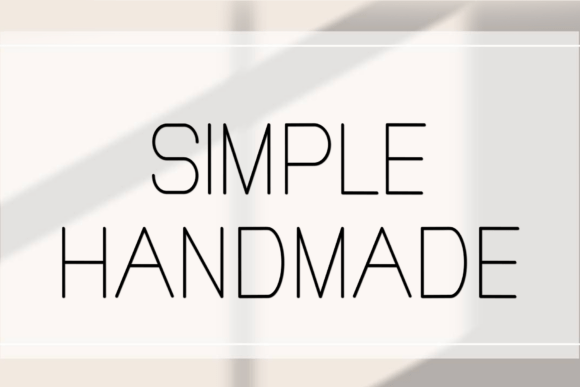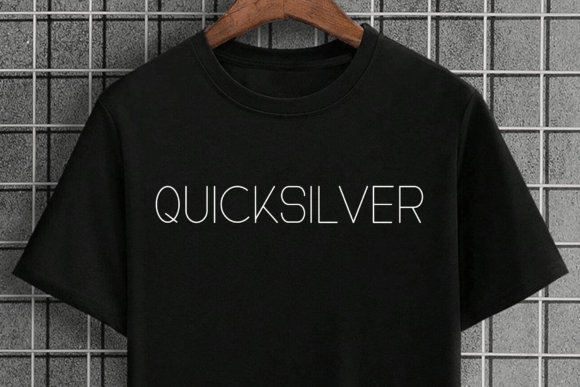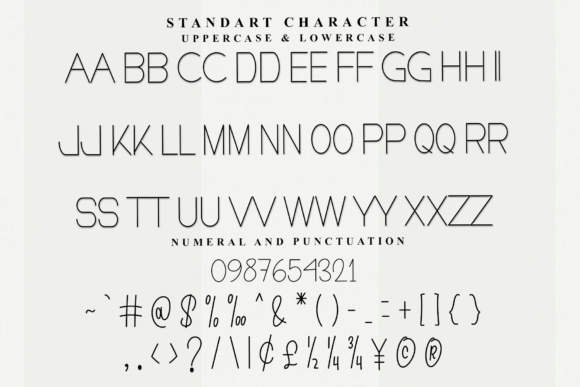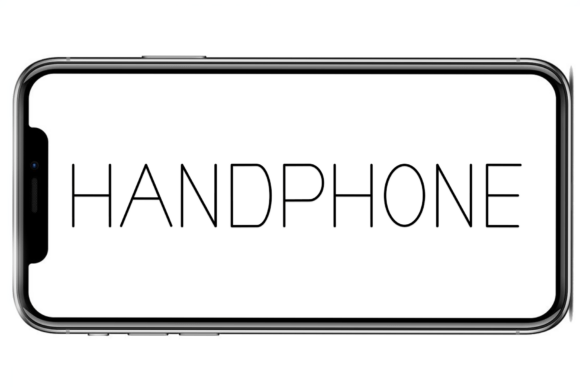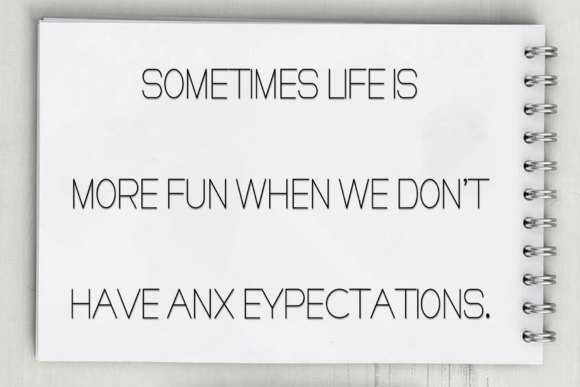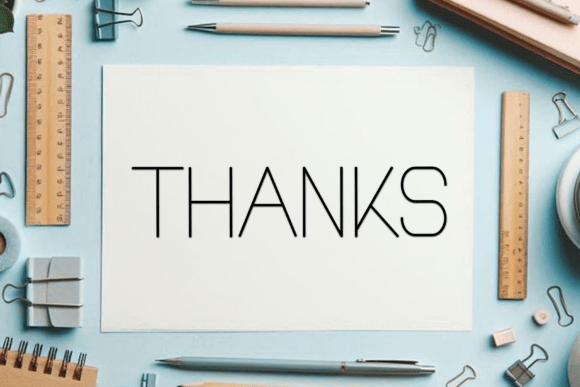
Introducing Designer Font: The Perfect Blend of Creativity and Friendliness
Are you tired of using the same old fonts for your personal projects, invitations, and social media graphics? Look no further than the Designer Font, a casual and creative typeface that exudes warmth and friendliness. With its round, playful strokes, this font creates a relaxed and approachable feel that’s perfect for designers and crafters looking to add a personal touch to their work.
The Charm of Hand-Drawn Aesthetic
The Designer Font boasts a charming, hand-drawn aesthetic that adds a fun and unique touch to any design. Its playful strokes and rounded edges create a sense of approachability and warmth, making it ideal for projects that require a personal and creative touch. Whether you’re designing an invitation, a social media graphic, or a personal project, this font is sure to make your work stand out.
Standard PUA Encoded Glyphs for Easy Use
The Designer Font is perfect for designers and crafters who want to add a personal touch to their work. Whether you’re creating a logo, a brochure, or a social media graphic, this font is sure to bring a touch of creativity and friendliness to your design. Its casual and approachable feel makes it ideal for projects that require a relaxed and playful vibe.
Tips for Using the Designer Font
Here are some tips for using the Designer Font in your designs:
- Use it for personal projects, such as invitations, social media graphics, and personal blogs.
- Pair it with other fonts to create a unique and creative look.
- Experiment with different font sizes and colors to add emphasis and create visual interest.
- Use it for crafting projects, such as making cards, gift tags, and scrapbooking.
Benefits of Using the Designer Font
Here are some benefits of using the Designer Font in your designs:
- It’s easy to read and understand, making it perfect for body text and captions.
- It’s highly versatile and can be used for a wide range of projects.
- It’s a great way to add a personal touch to your designs and make them stand out.
In conclusion, the Designer Font is a great choice for designers and crafters looking for a casual and creative typeface that exudes warmth and friendliness. Its hand-drawn aesthetic, playful strokes, and standard PUA Encoded glyphs make it perfect for personal projects, invitations, and social media graphics. With its ease of use and versatility, this font is sure to become a staple in your design toolkit.